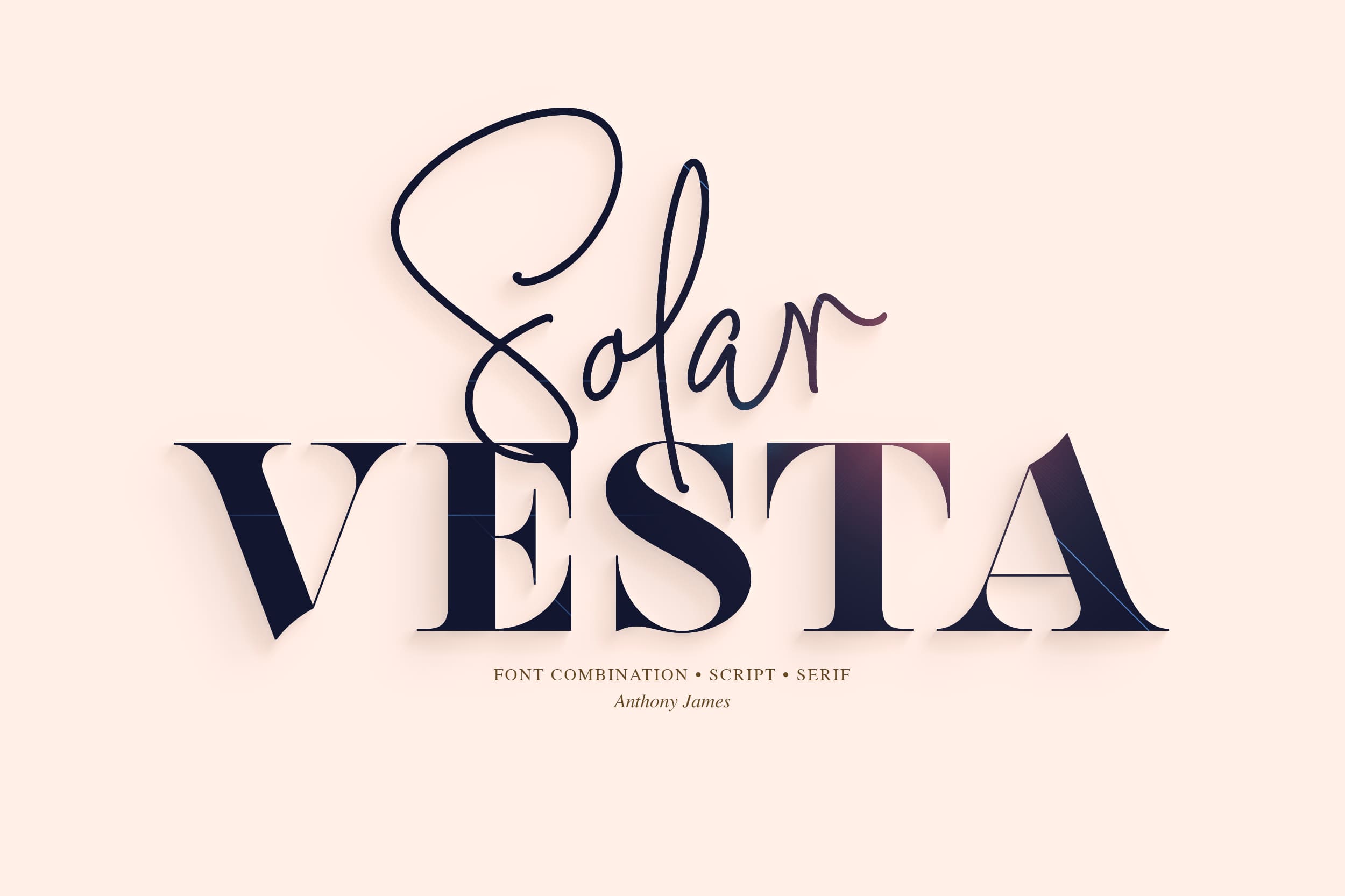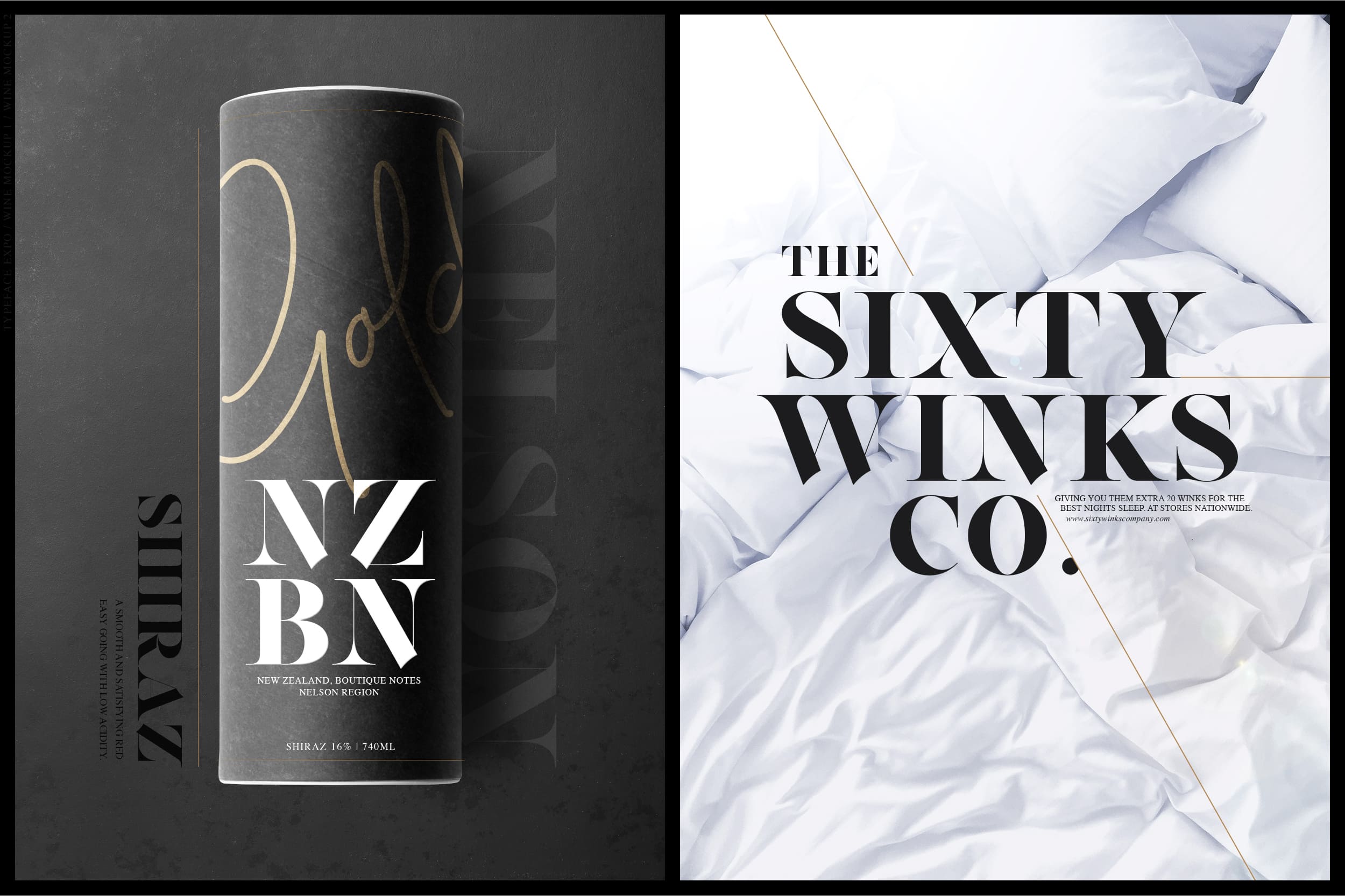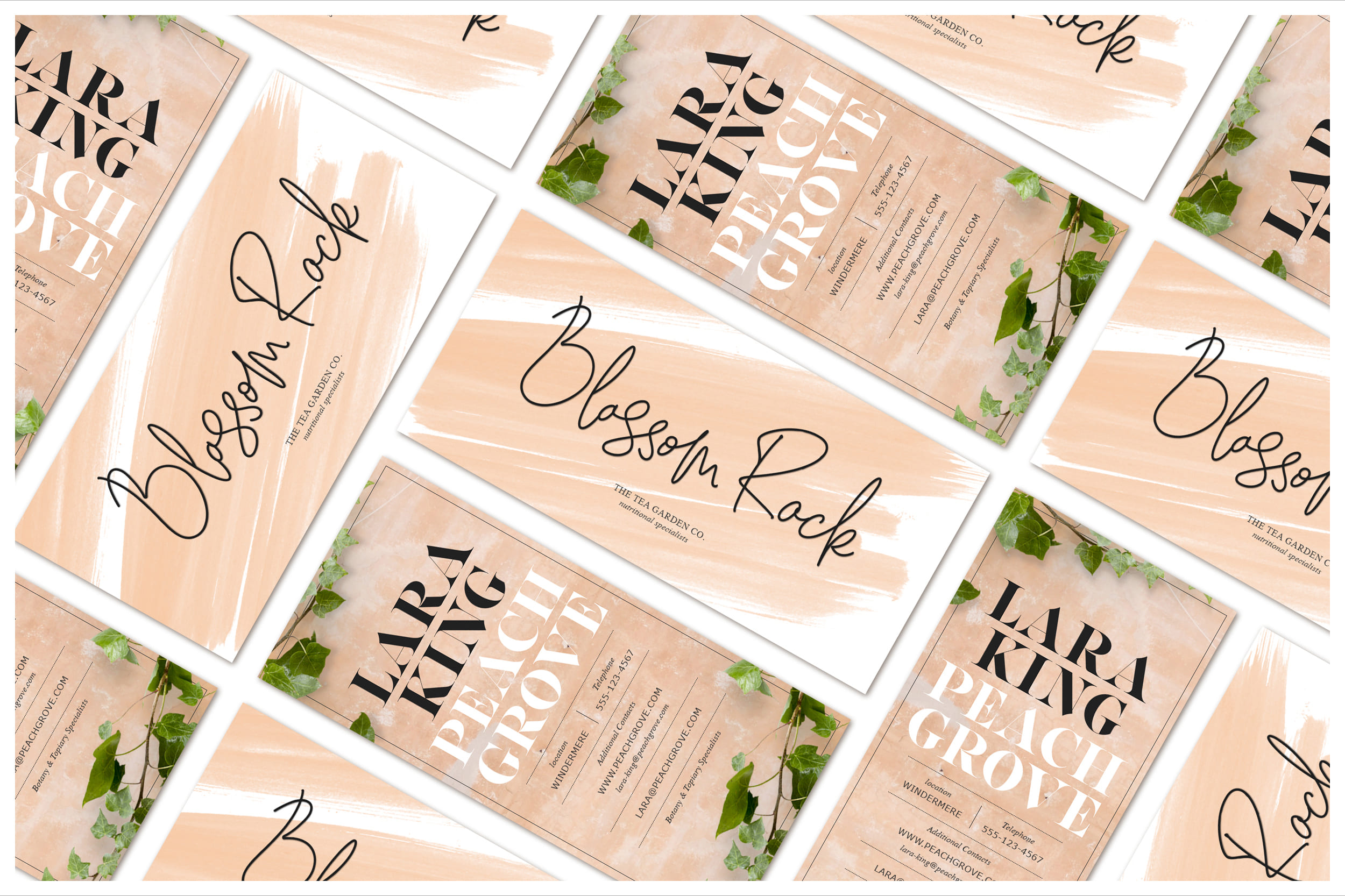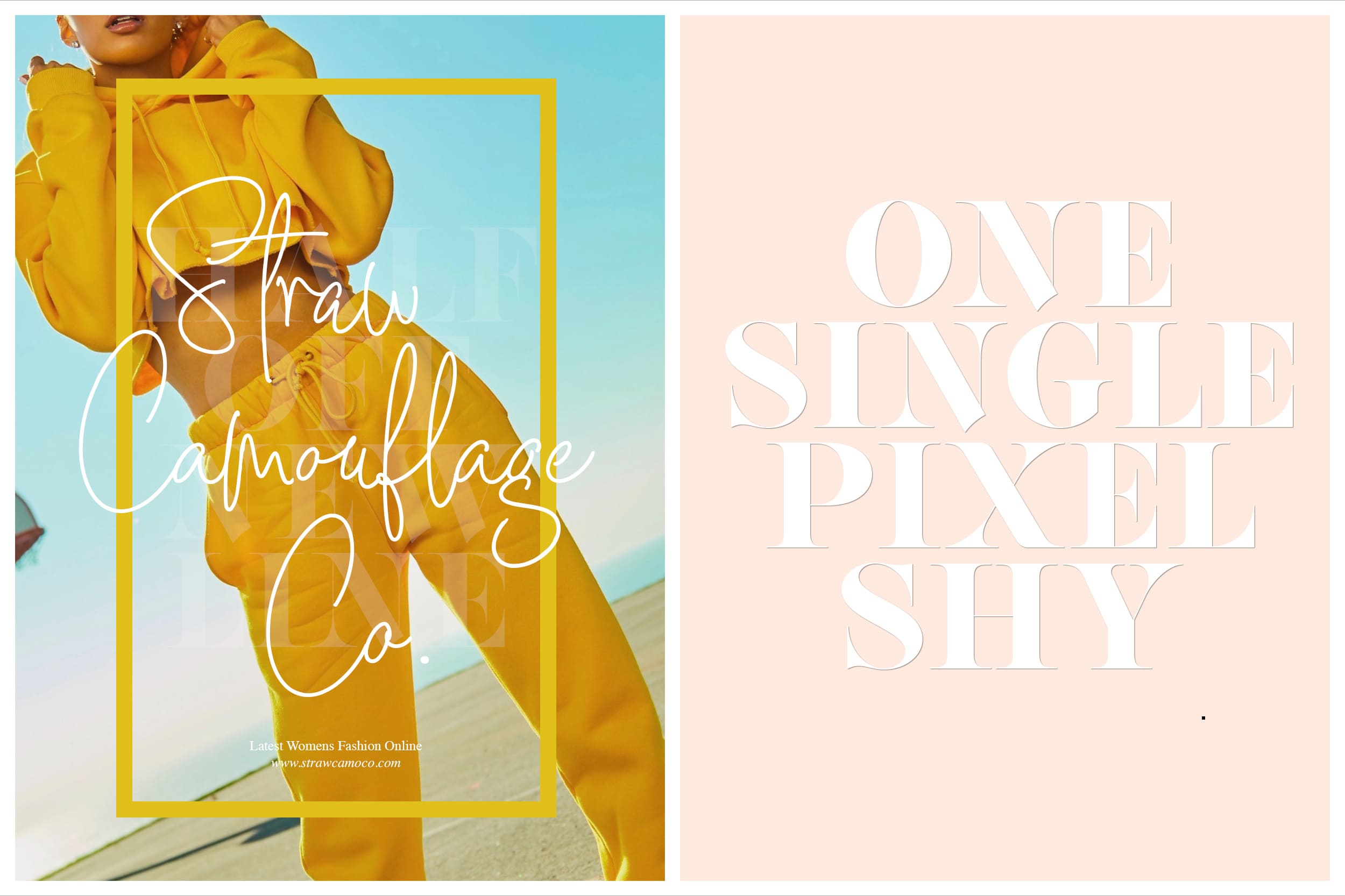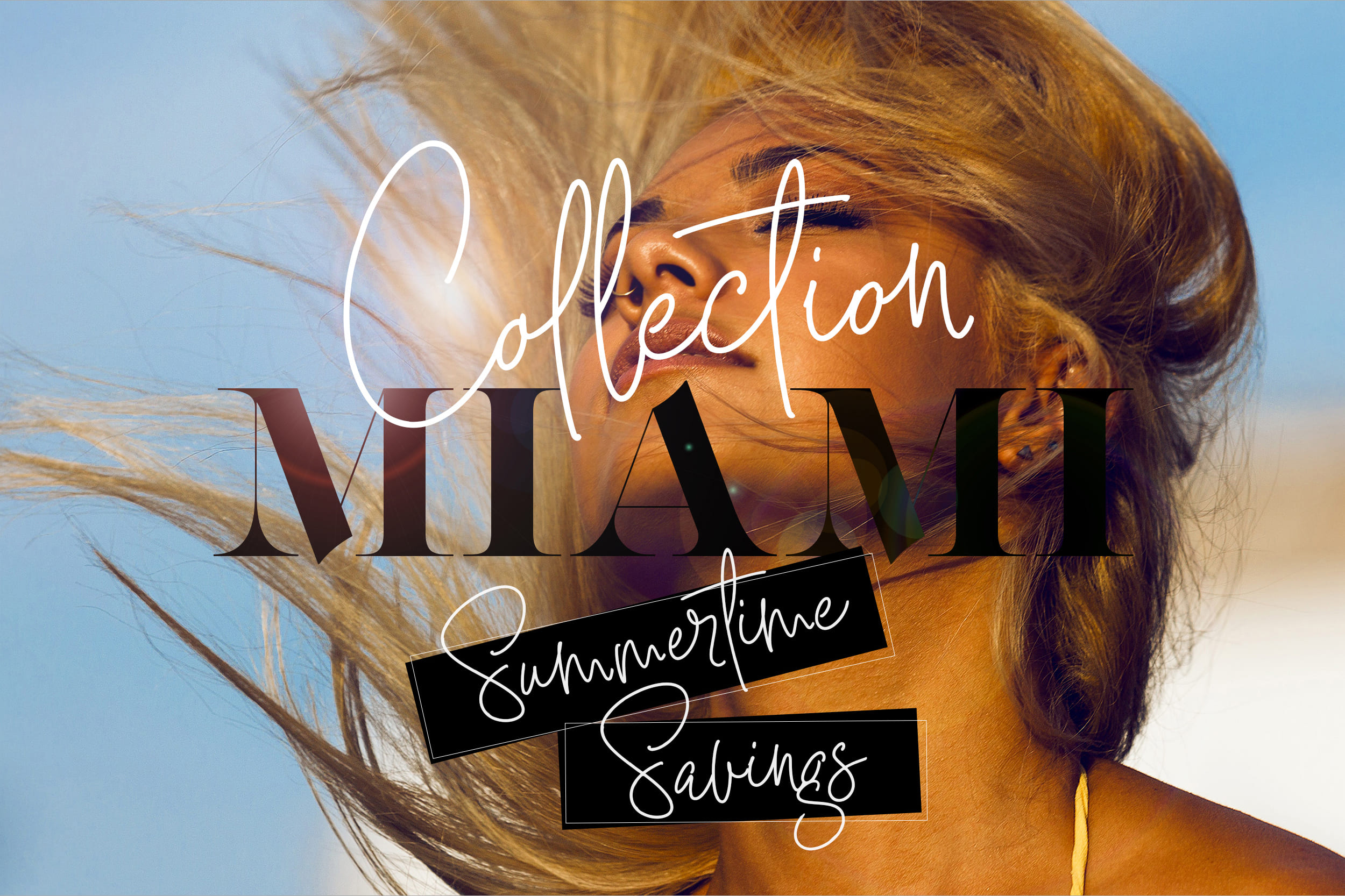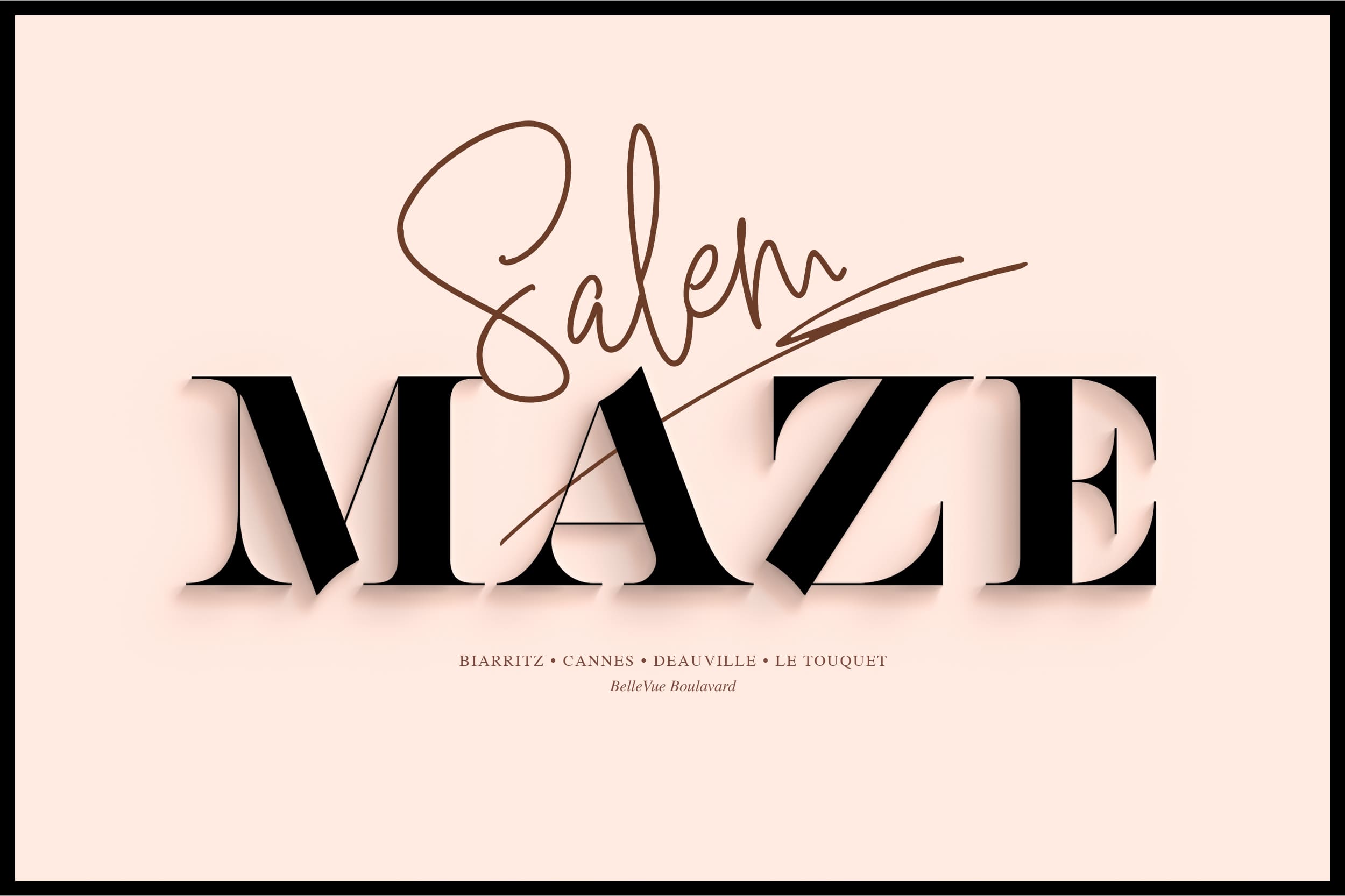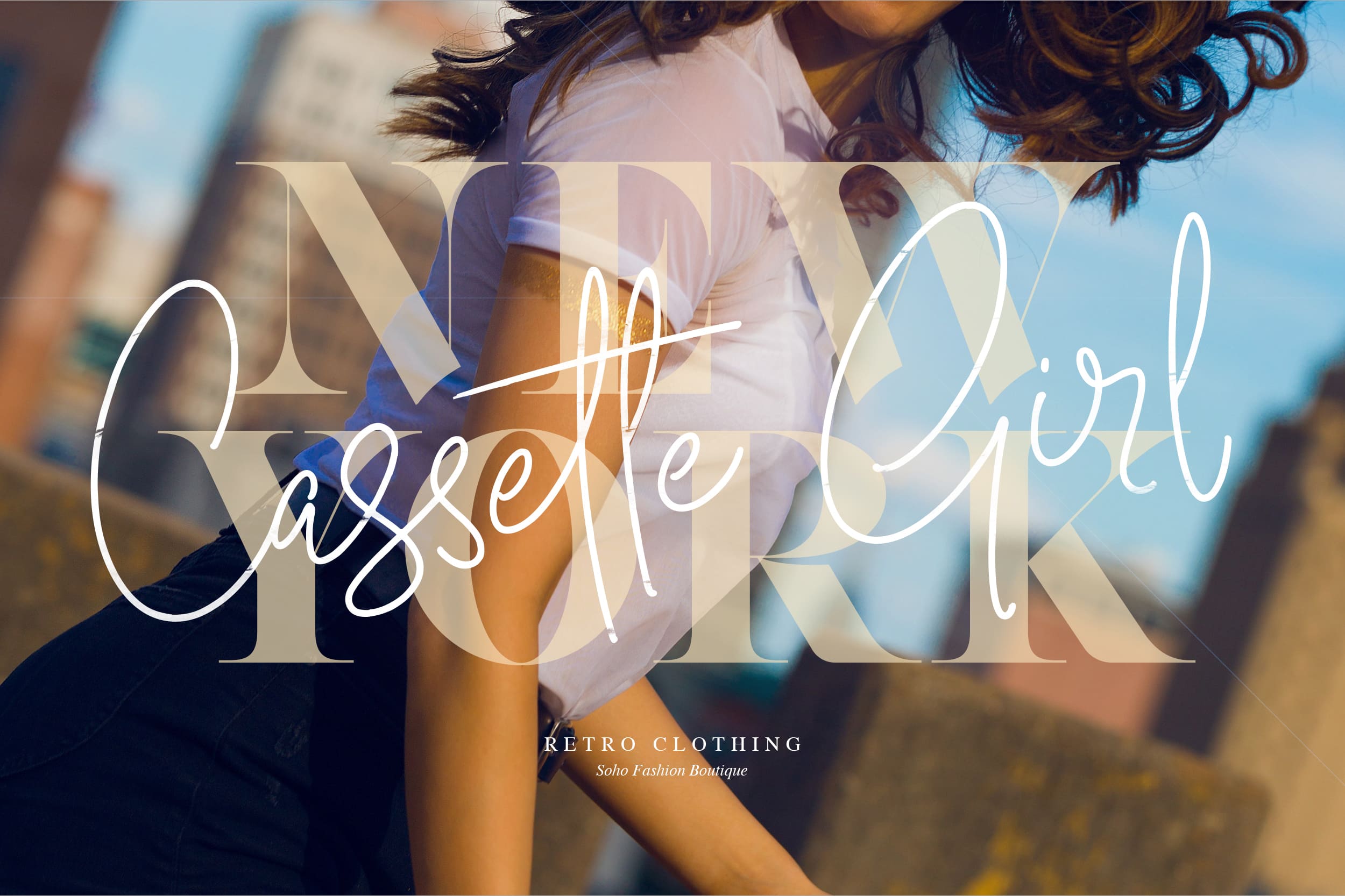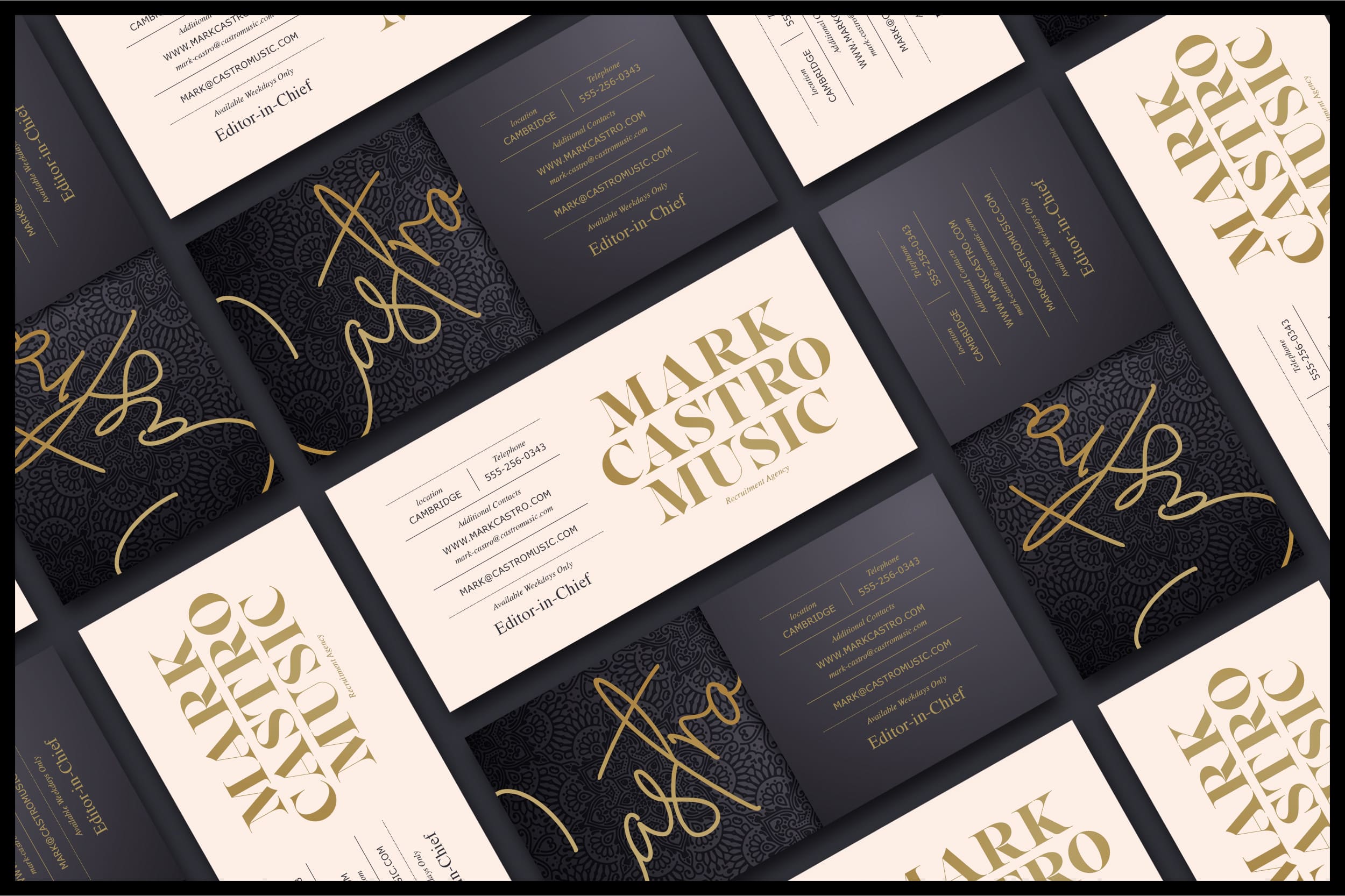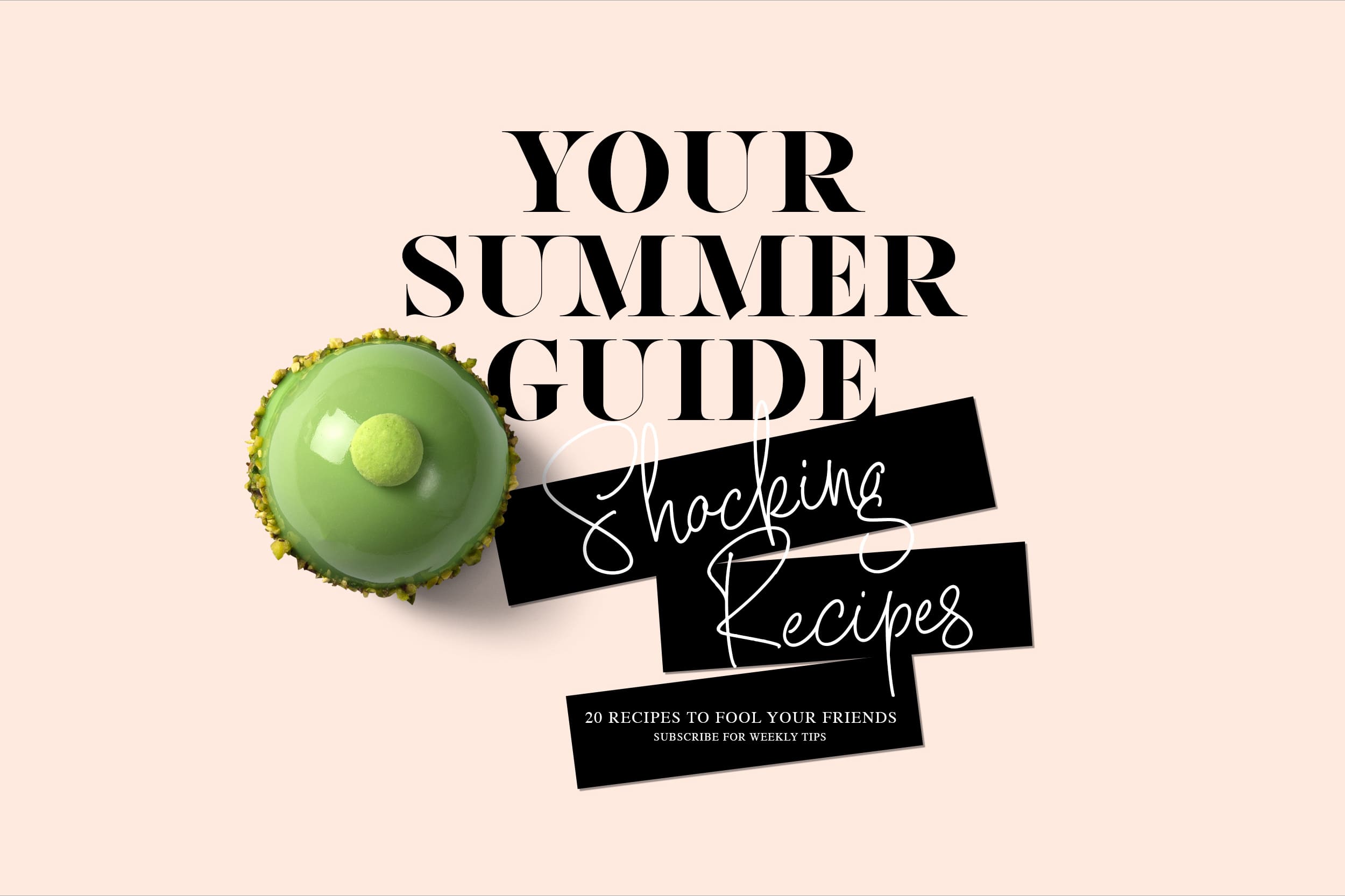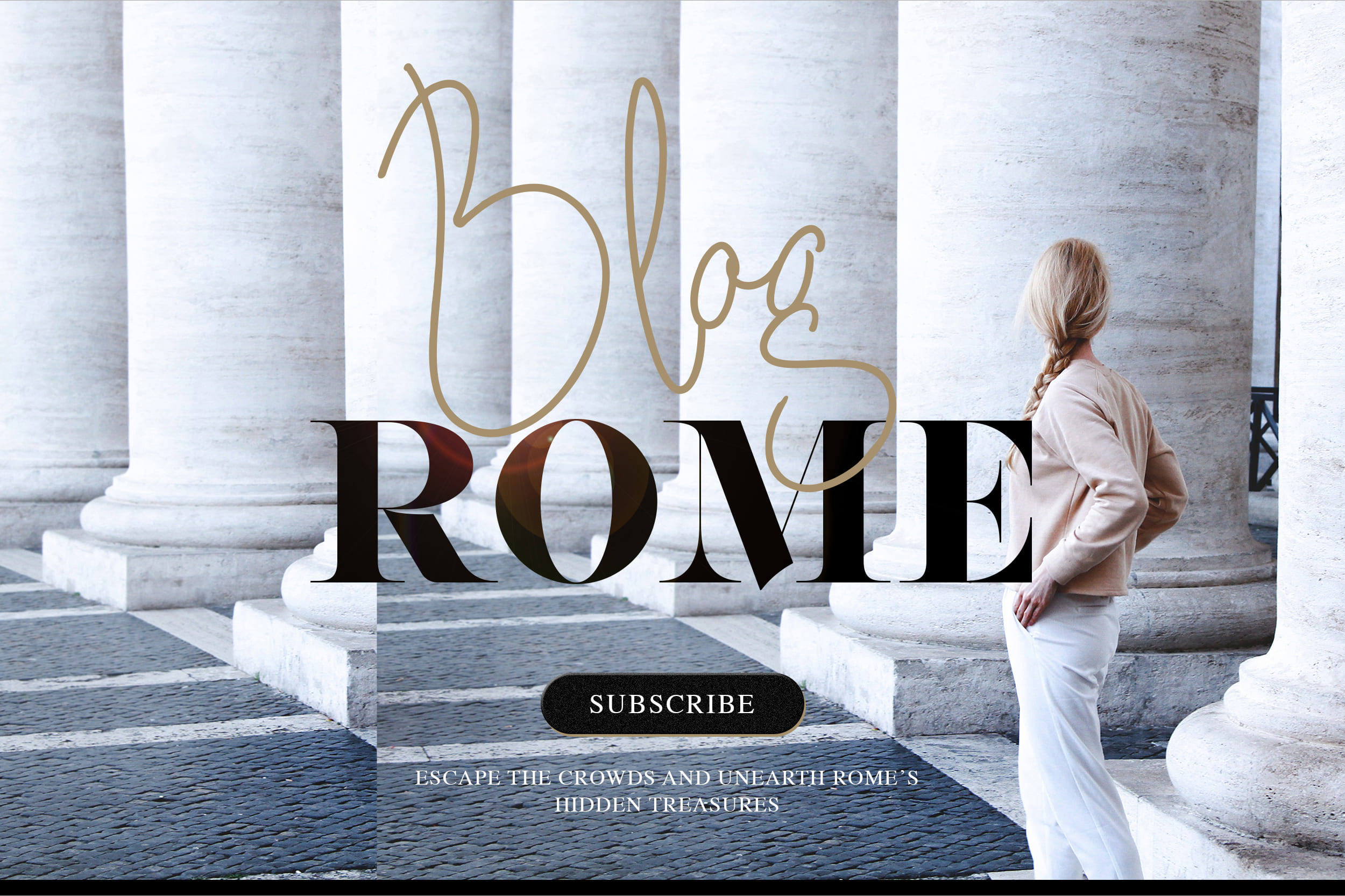
This collection houses both script and serif fonts that compliment each other perfectly. Solar Vesta Script includes 127 ligatures, along with a full set of Alternates/Contextuals for a completely versatile and natural aesthetic. Solar Vesta Serif is a sharp robust fashion-tbased typeface, incorporating that beautiful contrast between thick and thin.
To access the built-in Opentype features within the script font, make sure to turn on Standard Ligatures and Contextual Alternates in your Softwares Opentype Panel. This activates all neccessary features and enables optimum accessibility, to allow for natural handwriting. Solar Vesta Script also includes swashes, these are easily accessible as Stylistic Alternates, when typing in basic Numer- als...123 etc.